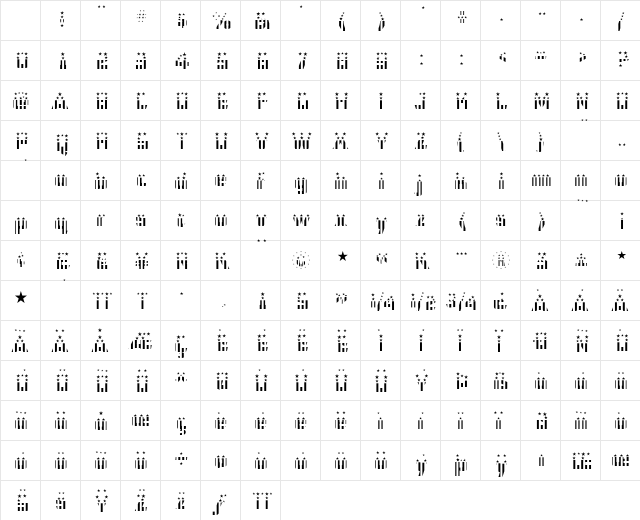
Complete CFB1 American Patriot SPANGLE 2 Bold glyph index. Displaying only characters natively supported by CFB1 American Patriot SPANGLE 2 Bold font.
CFB1 American Patriot SPANGLE 2 is a composed and adaptable typeface that performs quietly and consistently across a wide range of design contexts. Its bold stroke weight gives it real presence on the page.